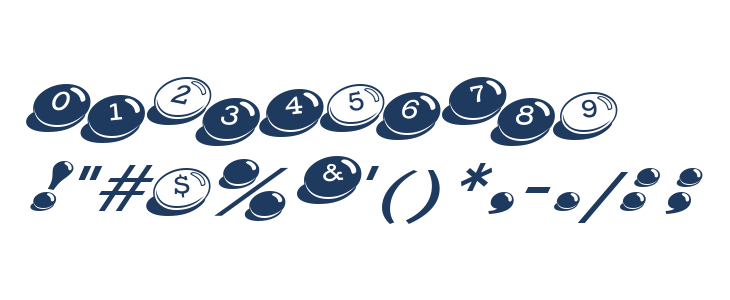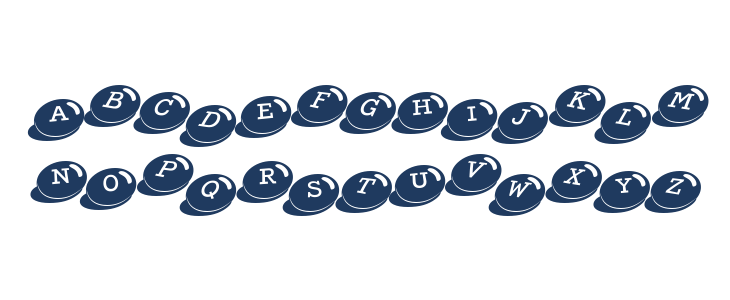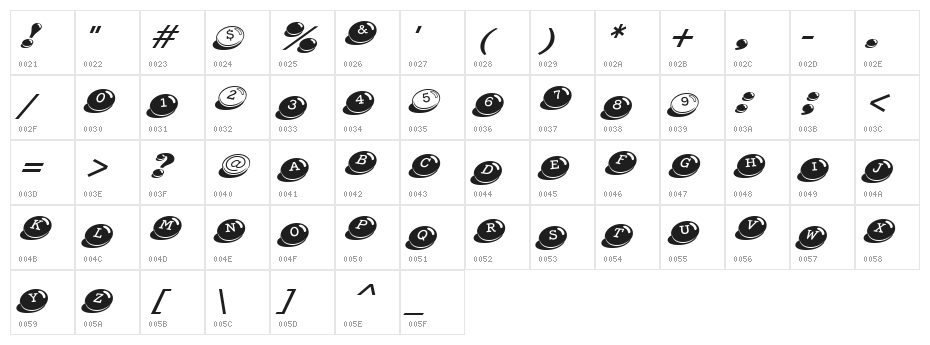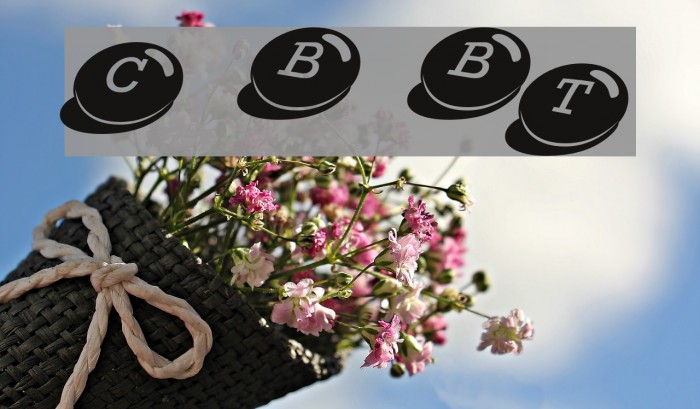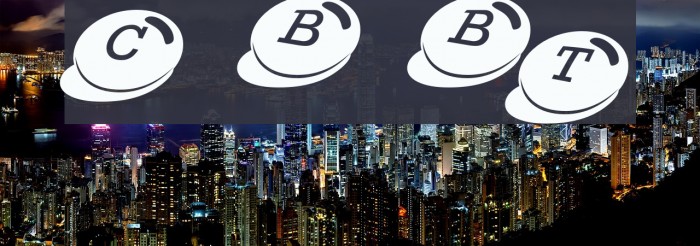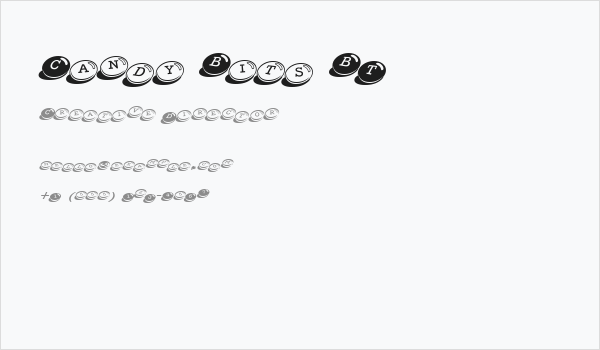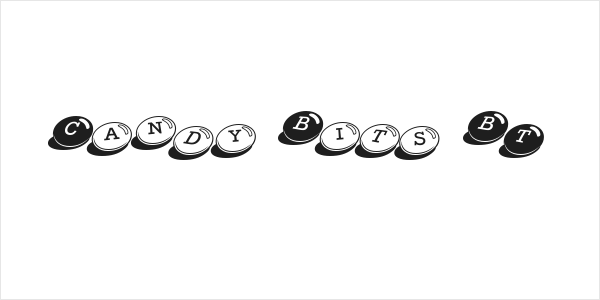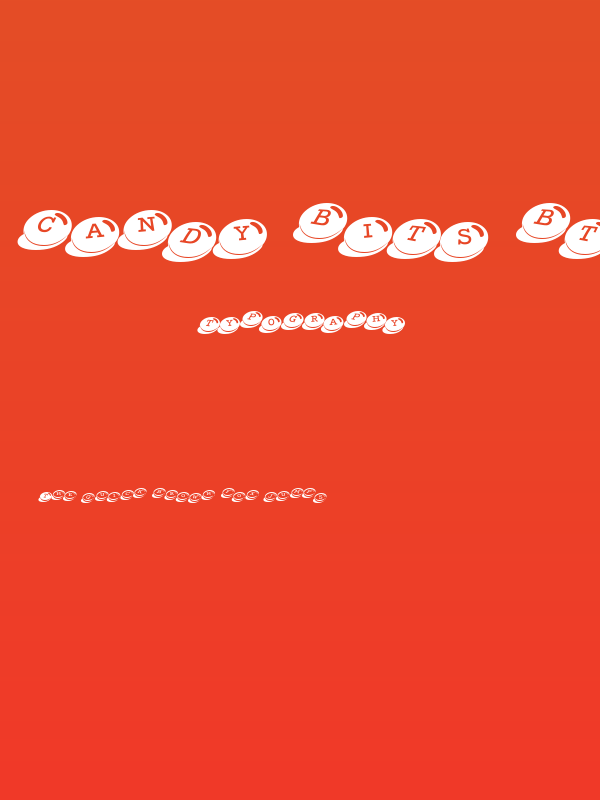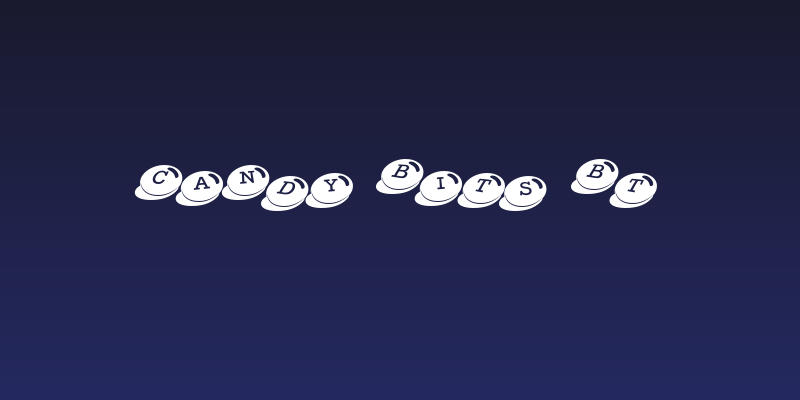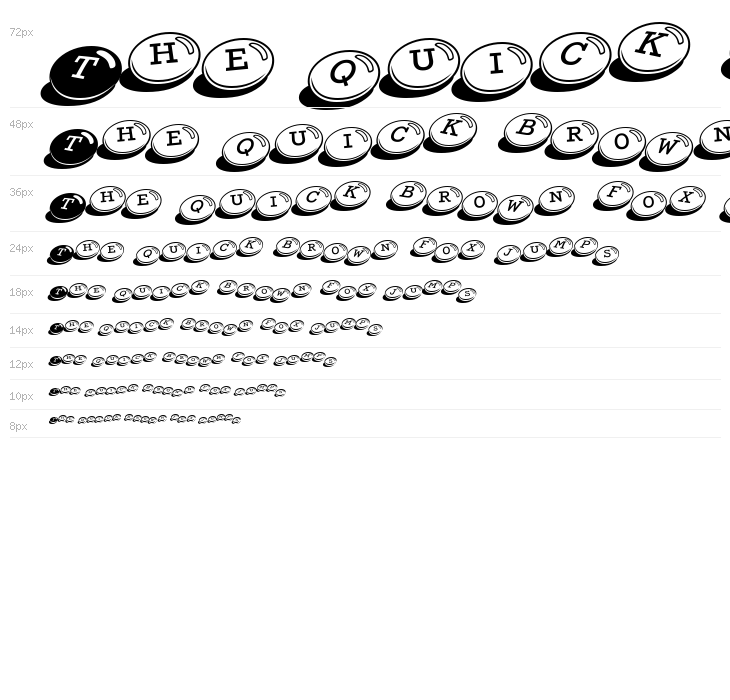
Candy Bits BT Font
Candy Bits BT Description
This playful and whimsical font features characters that appear as if they are embossed on rounded candy-like shapes. Each letter and number is encased in a circular form, giving it a three-dimensional effect with a shadow that adds depth. The font is characterized by its bold, rounded letters that are easy to read and have a fun, informal style. The uppercase and lowercase letters maintain a consistent design, with the uppercase being slightly larger and more pronounced. Numbers and special characters follow the same playful theme, making this font ideal for projects that require a light-hearted and engaging appearance.
| Use Case | Headlines, Logos, Packaging |
| Proposed Projects | Ideal for children's books, candy packaging, playful branding, party invitations, and any project that requires a fun and whimsical touch. |